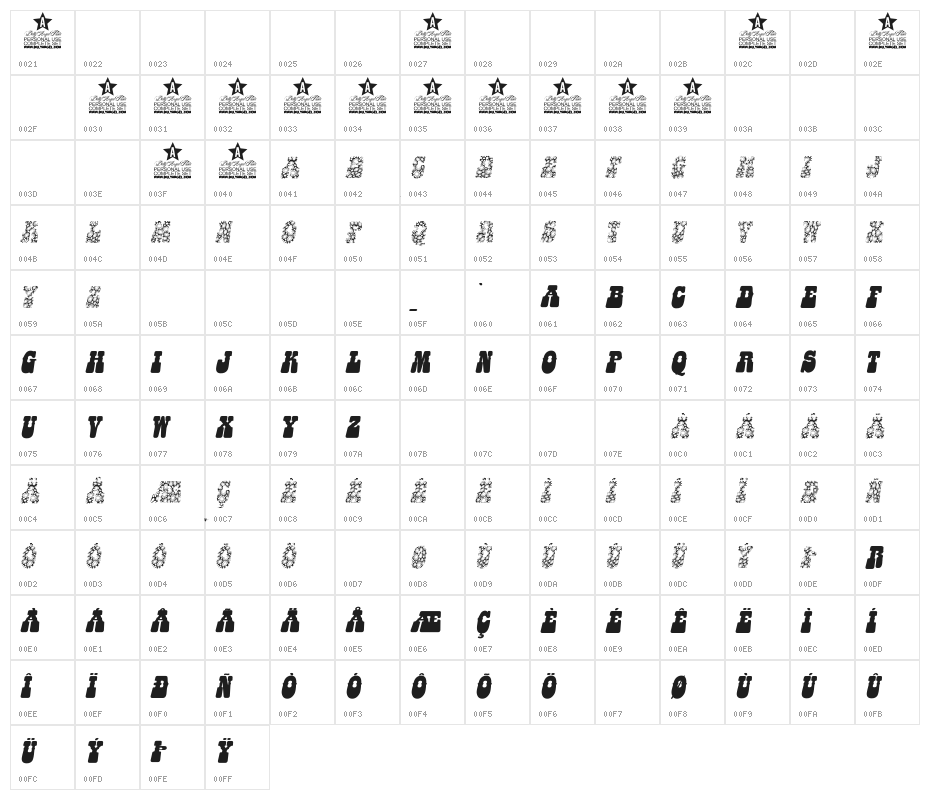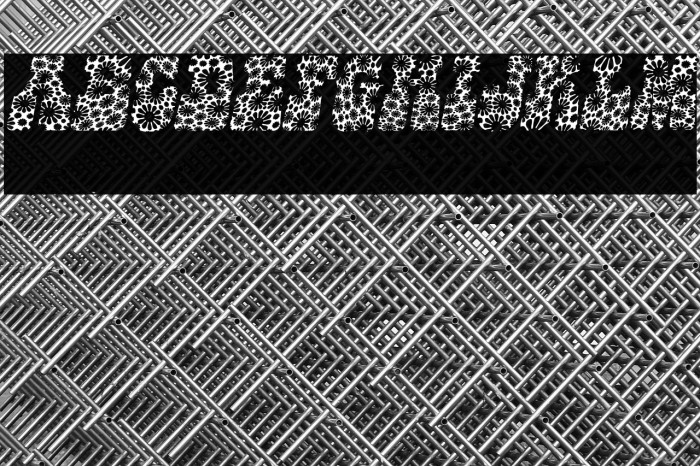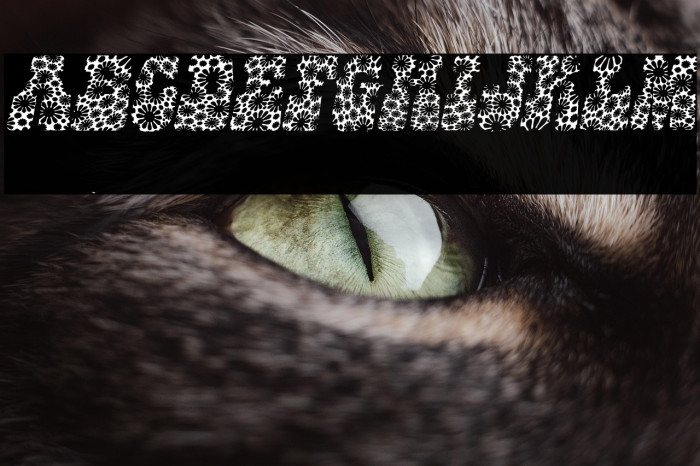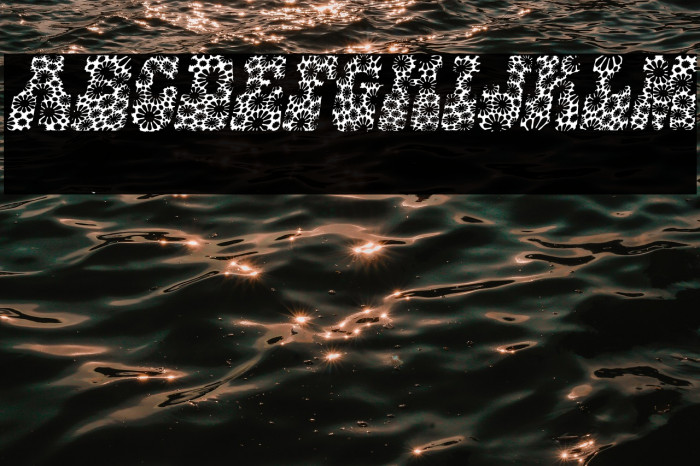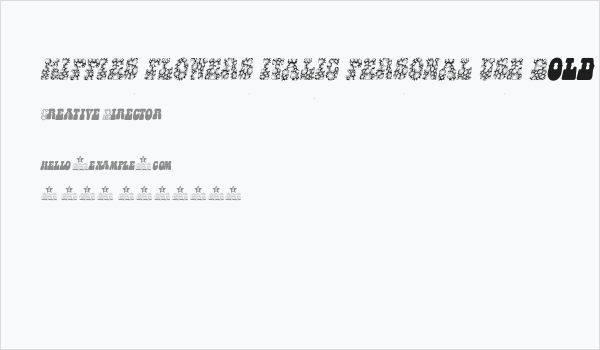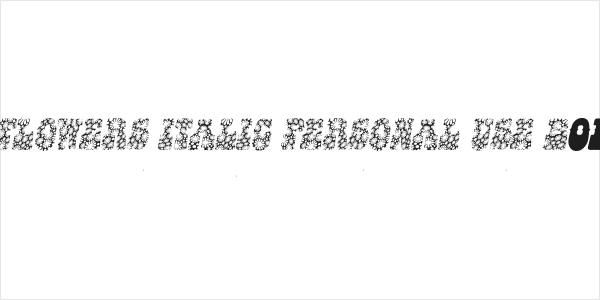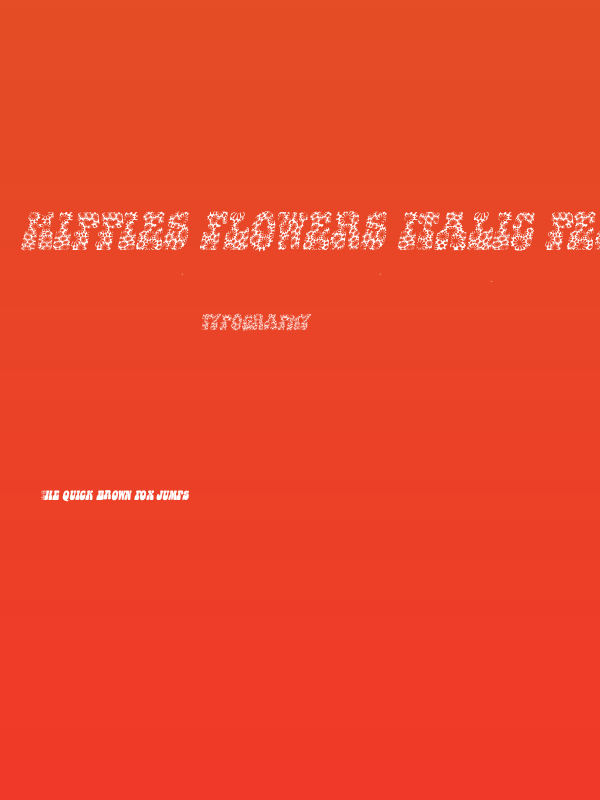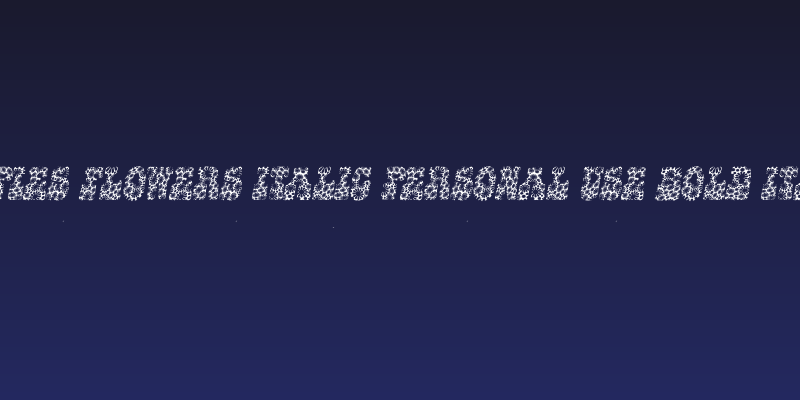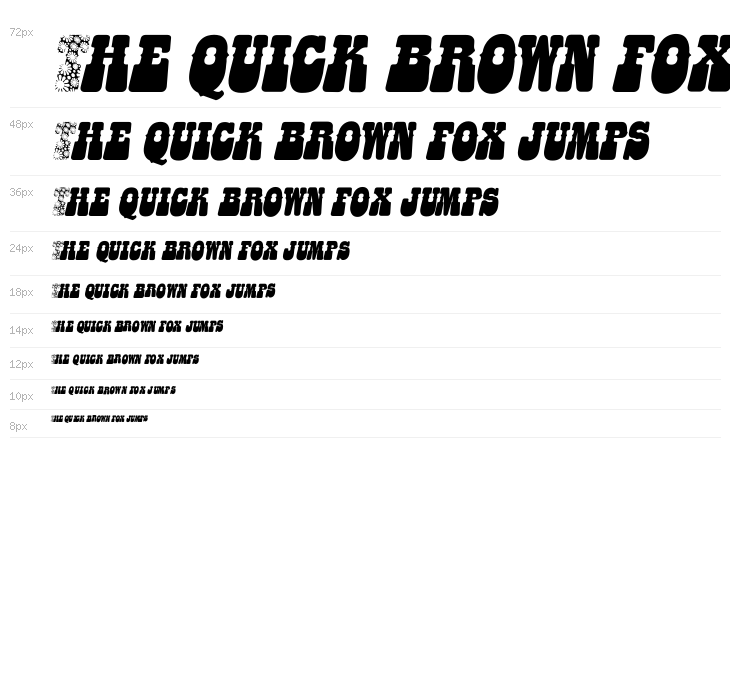
HIPPIES FLOWERS ITALIC PERSONAL USE Bold Italic Font
HIPPIES FLOWERS ITALIC PERSONAL USE Bold Italic Description
This font features a playful and decorative style, with uppercase letters adorned with intricate floral patterns. The design is bold and eye-catching, making it ideal for creative and artistic projects. The floral elements give it a whimsical and retro vibe, reminiscent of the 1960s and 70s hippie culture. The letters are italicized, adding a dynamic and flowing feel to the text. This font is perfect for personal use, especially in projects that aim to capture a sense of nostalgia and fun.
| Proposed Projects | Ideal for posters, album covers, event invitations, and any project seeking a retro or whimsical aesthetic. |